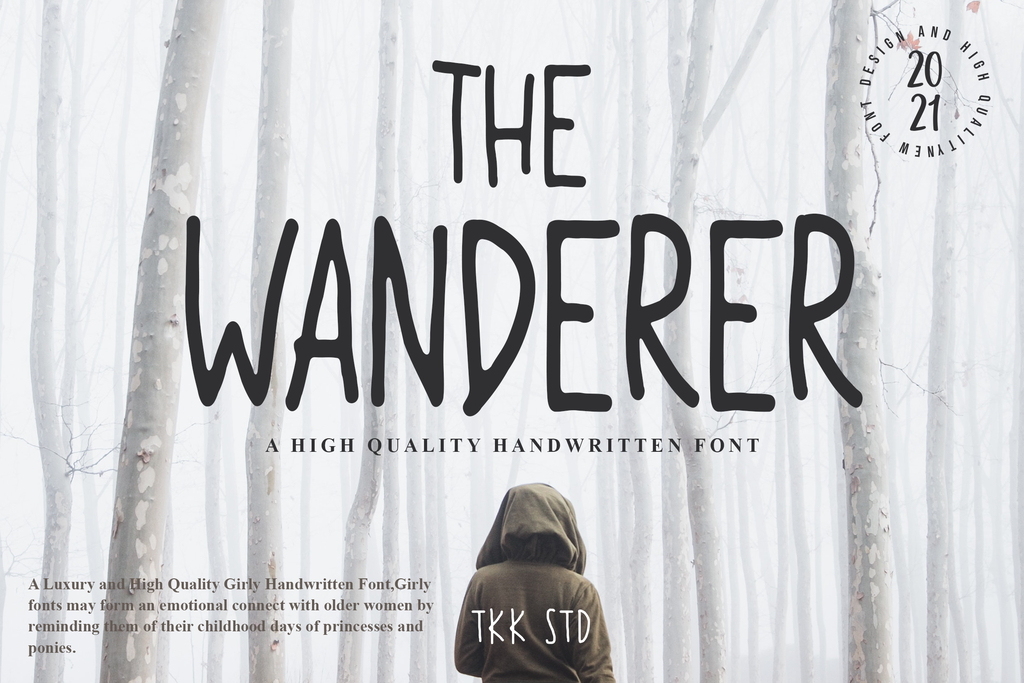
The Wanderer – Condensed Handwriting Font
Handwriting font The Wanderer beautifully captures the spirit of exploration and introspection, making it ideal for designs with a wanderlust vibe. With its organic, hand-drawn style, this font combines simplicity and elegance, adding calm and depth to each character. The tall, slightly imperfect letters feel like handwriting crafted on a journey, inspired by nature and adventure. Therefore, it’s perfect for designs that need a touch of mystery or nostalgia, creating an earthy and authentic tone.
Moreover, The Wanderer’s clean lines and moderate spacing enhance both legibility and visual appeal. Its versatile style suits headers and body text, allowing it to stand out without overwhelming the design. Additionally, subtle irregularities in each letter add charm, giving designs a personal and approachable touch. Whether used on posters, logos, or social media graphics, handwriting font The Wanderer adapts well while maintaining a distinctive look.
With its raw, handmade feel, The Wanderer strongly connects with natural themes, outdoor adventures, and reflective projects. Its balance of readability and personality makes it suitable for a wide range of creative uses. Furthermore, this font pairs wonderfully with monochrome and muted color schemes, enhancing designs with a simple yet impactful style.
Handwriting Font The Wanderer Perfect for Adventure and Lifestyle Brands
The Wanderer is ideal for designers, brands, and creators who want to convey a sense of exploration and reflection. It’s especially fitting for adventure and lifestyle brands centered on travel, nature, and mindfulness. Outdoor brands and travel blogs, for instance, will find it perfect for branding, as it resonates with audiences who appreciate authenticity and nature’s beauty. It works well on logos, product packaging, and promotional materials that aim for a rustic charm.
This font also suits content creators and influencers seeking an authentic, thoughtful touch. From Instagram posts to YouTube thumbnails, The Wanderer brings warmth and a welcoming tone to social media graphics. In particular, it’s a great fit for bloggers focused on travel, wellness, or self-discovery, enhancing quotes, headlines, and titles with depth. With this font, creators can convey intimacy and a personal connection.
Additionally, The Wanderer shines in projects related to books, photography, and storytelling. Authors, book cover designers, and photographers can use it for covers, captions, and titles, capturing introspection and curiosity. It’s an excellent choice for educational materials or environmental campaigns as well, reinforcing messages about sustainability and conservation.